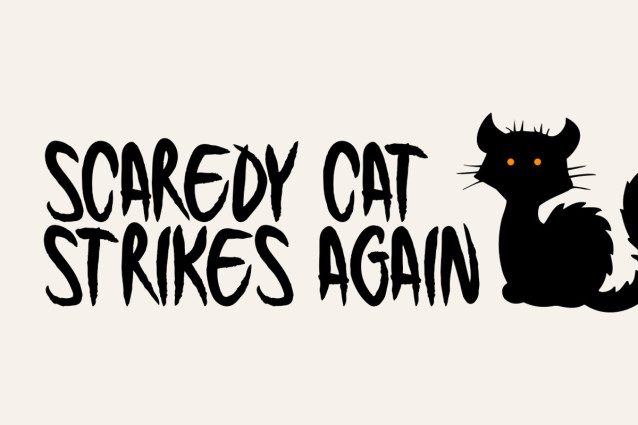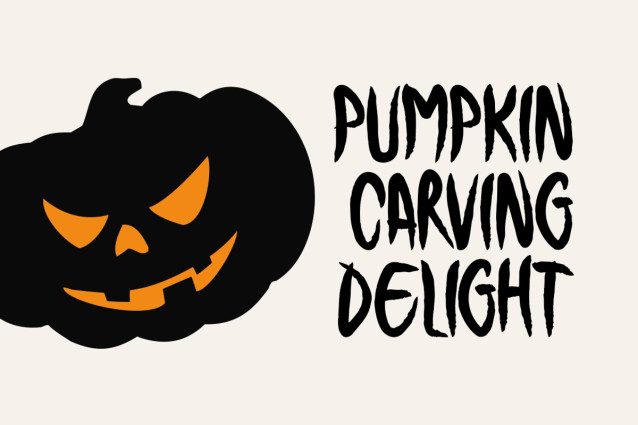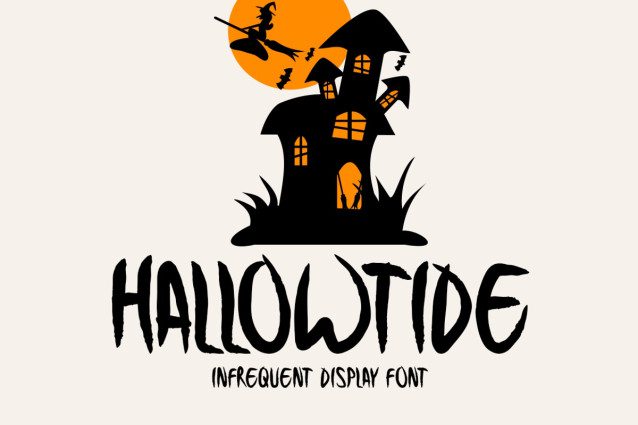
Hallowtide Font
Hallowtide Font is a distinctive and visually striking display font, carefully crafted to enrich a variety of creative projects, including flyers, photo frames, music covers, posters, image sliders, printed media, logos, t-shirt designs, and stationery.